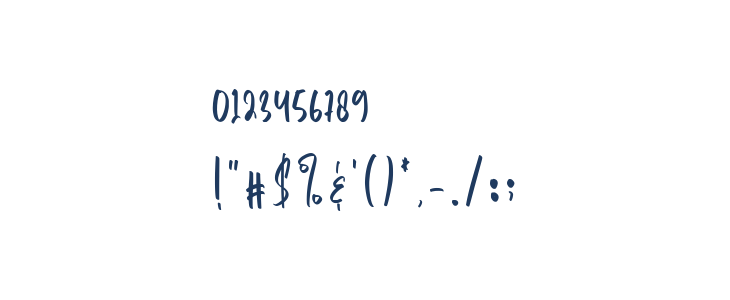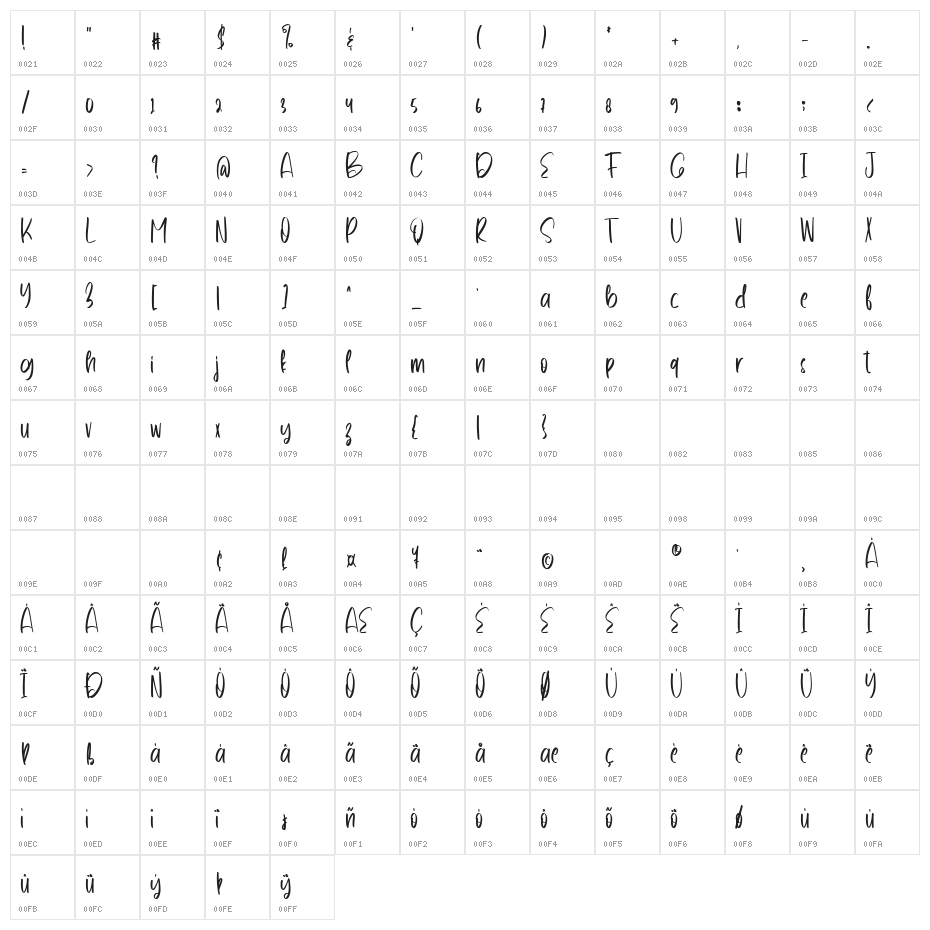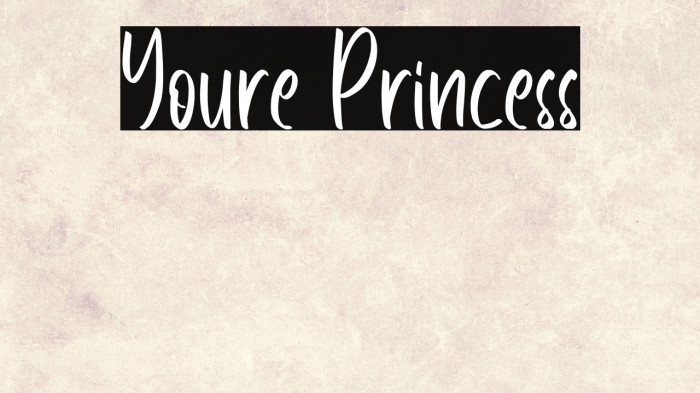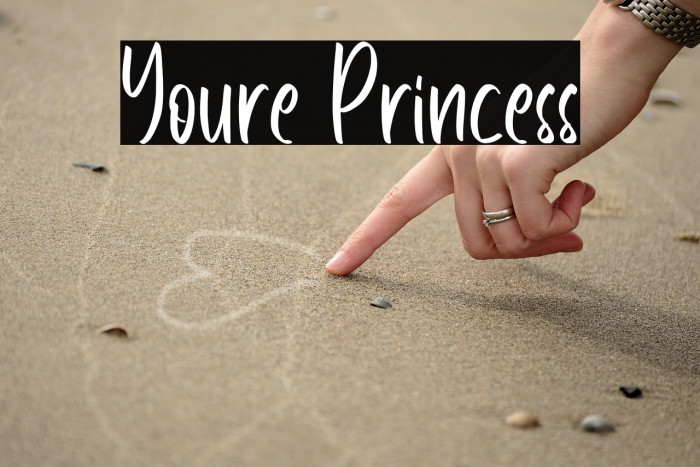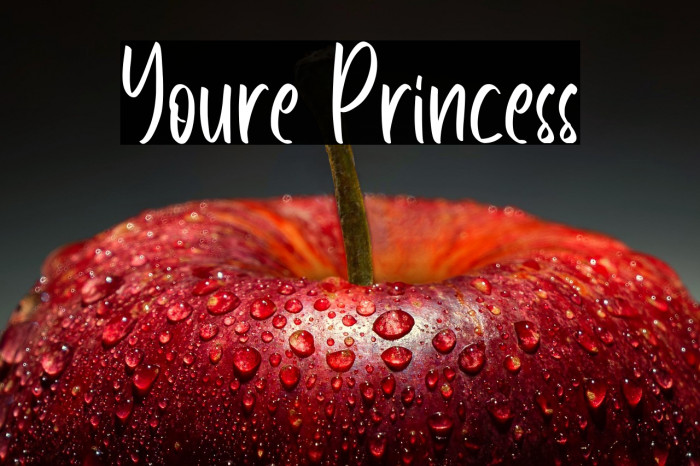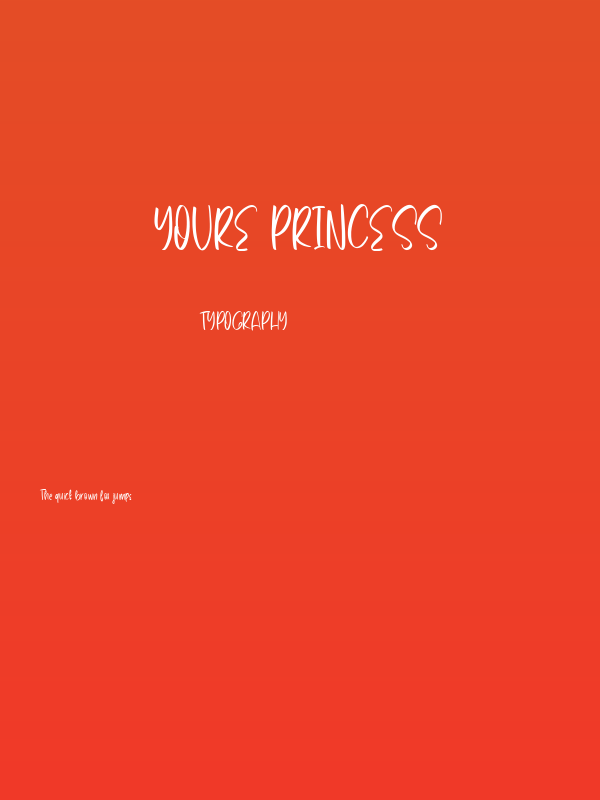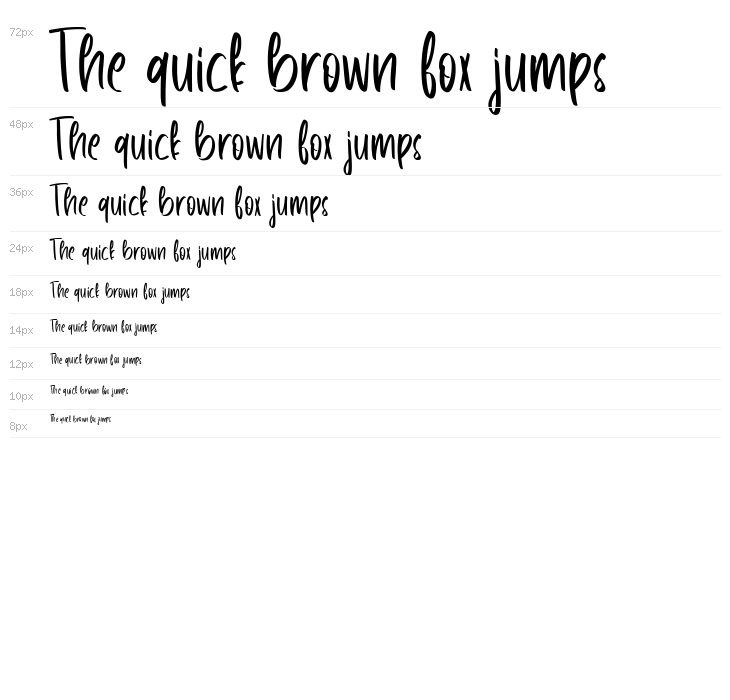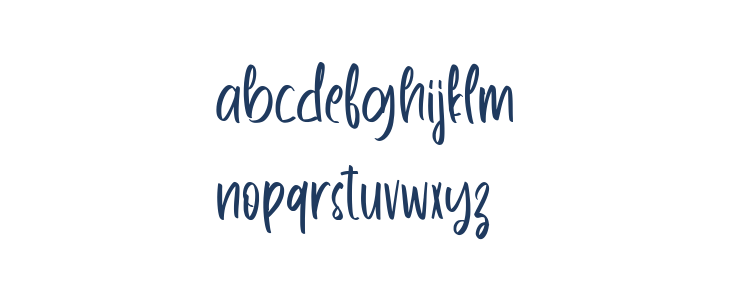
Youre Princess Font
Youre Princess Description
This font features a playful and whimsical handwritten style, characterized by its flowing and slightly irregular letterforms. The uppercase letters are tall and slightly narrow, with a casual flair that adds a touch of personality. The lowercase letters maintain a consistent style, with rounded edges and a smooth, flowing appearance. The numbers are similarly styled, providing a cohesive look across all characters. Special characters are included, matching the playful aesthetic of the font. This font is ideal for projects that require a personal and friendly touch, such as invitations, greeting cards, or playful branding.
| Proposed Projects | Ideal for invitations, greeting cards, playful branding, and personal projects. |